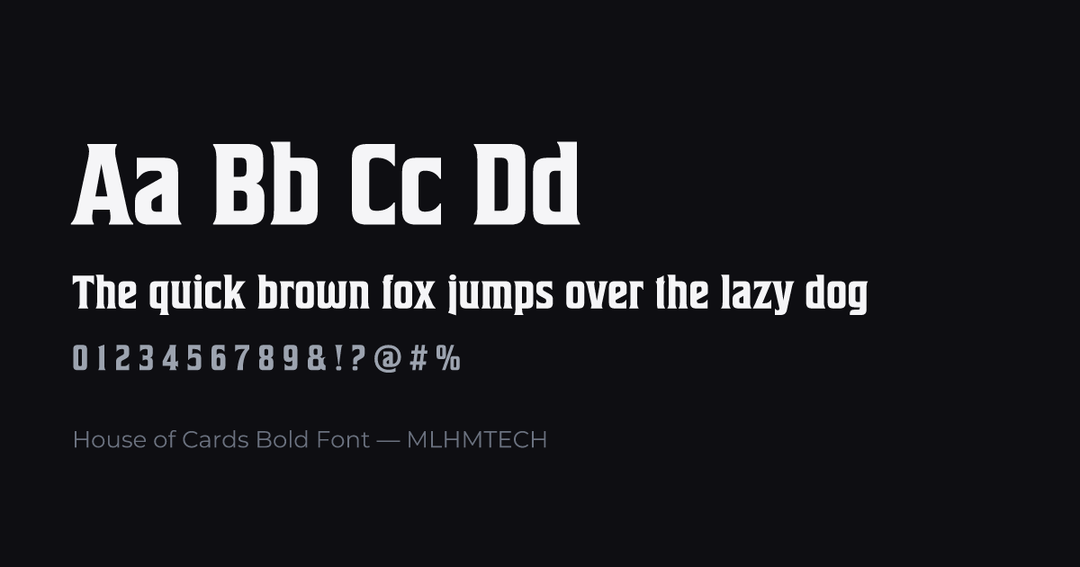
House of Cards Bold Font
House of Cards Bold is a high-contrast serif font with an elegant, dramatic feel. Ideal for titles, logos, and editorial designs.
House of Cards Bold is a striking serif typeface that exudes sophistication and authority. Its sharp, high-contrast strokes make it perfect for headlines, logos, and any design that needs a touch of class.
This font is particularly well-suited for video titles, movie posters, and branding projects where you want to make a bold statement. The included OTF file ensures crisp rendering across various platforms and software.
Whether you're creating a cinematic intro or a refined print layout, House of Cards Bold will elevate your work with its timeless elegance.